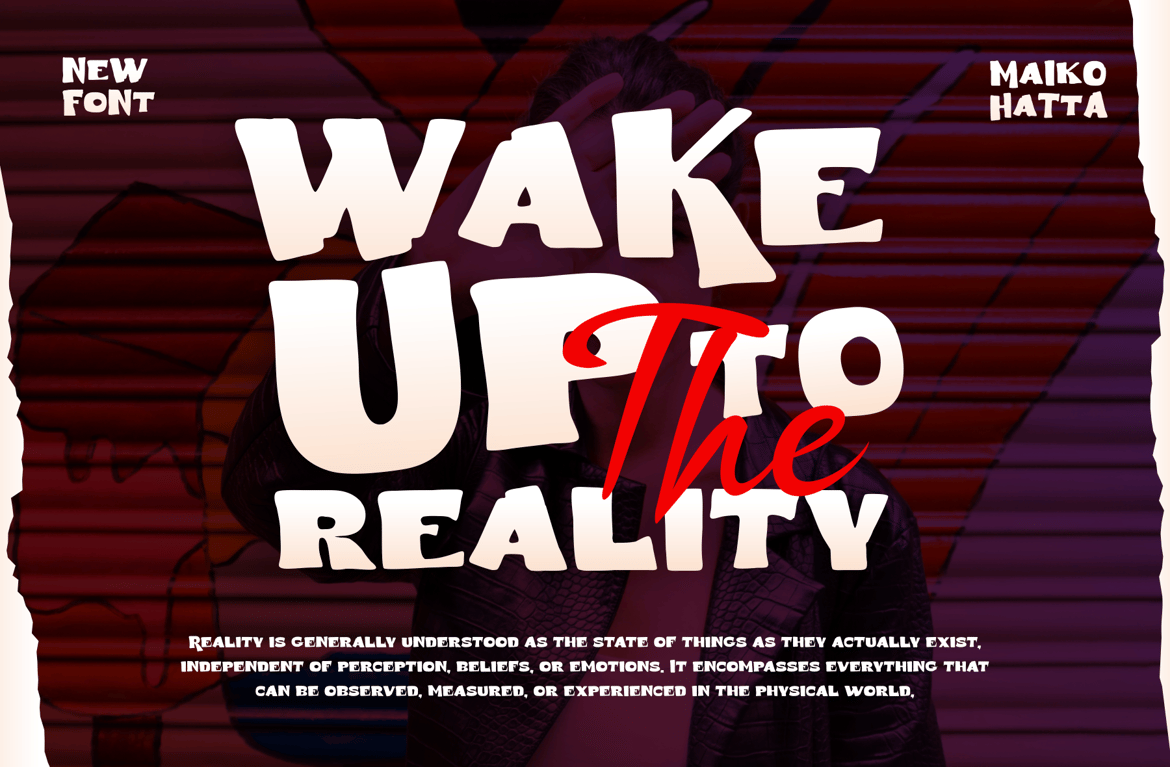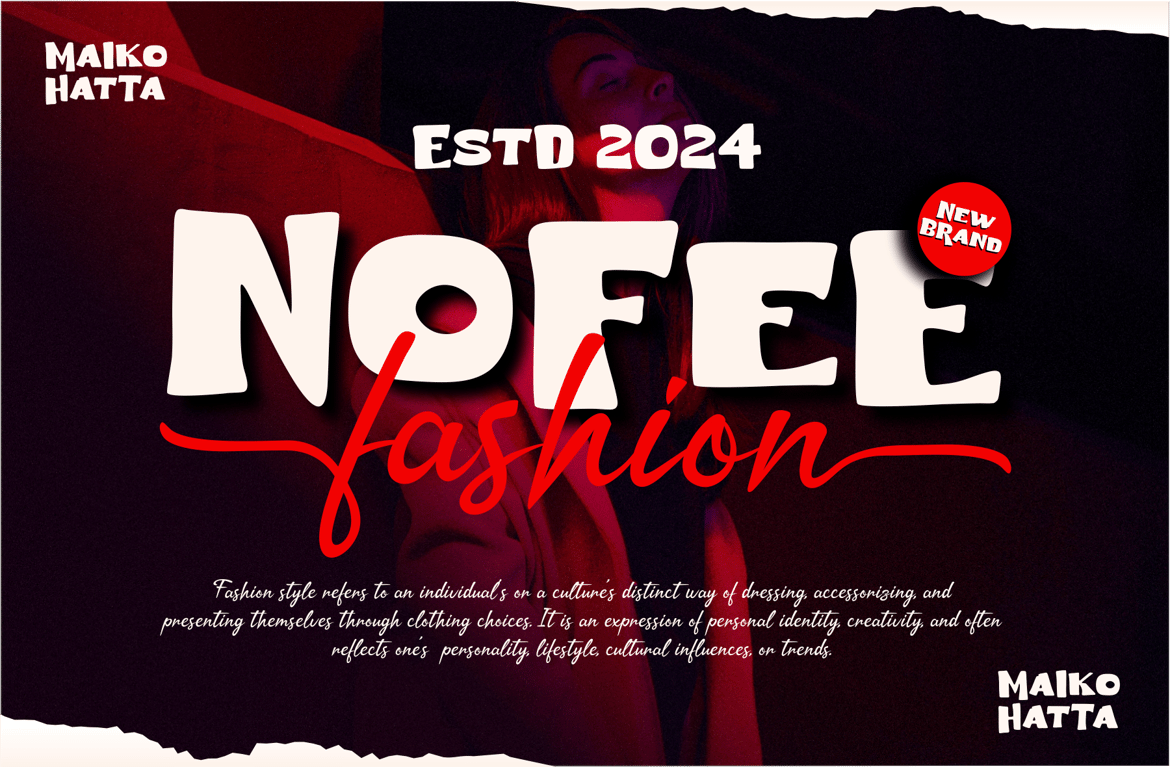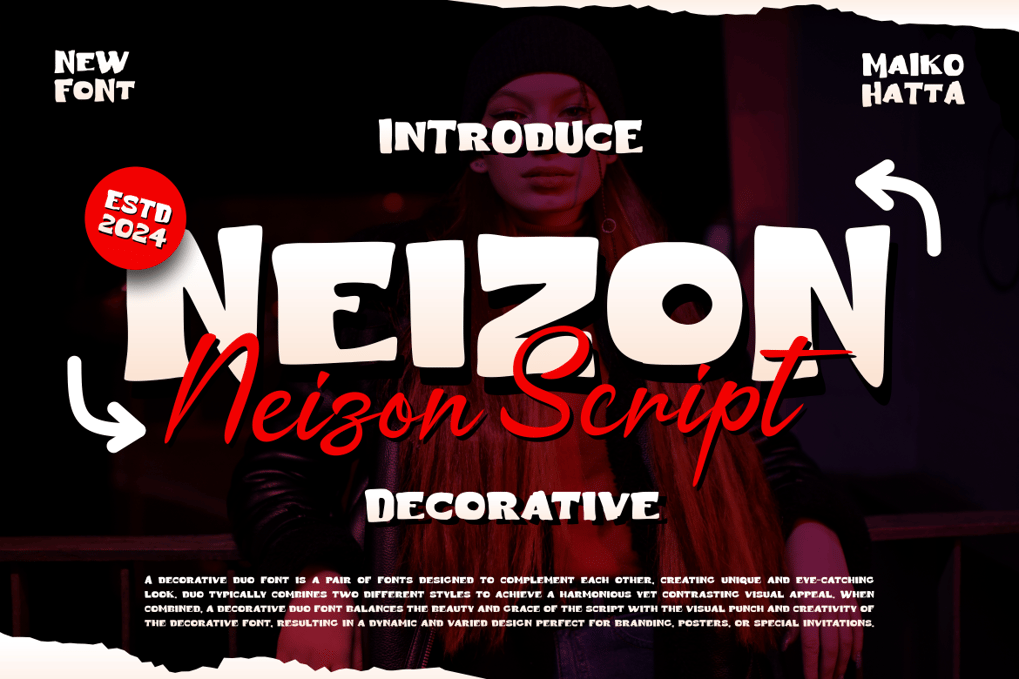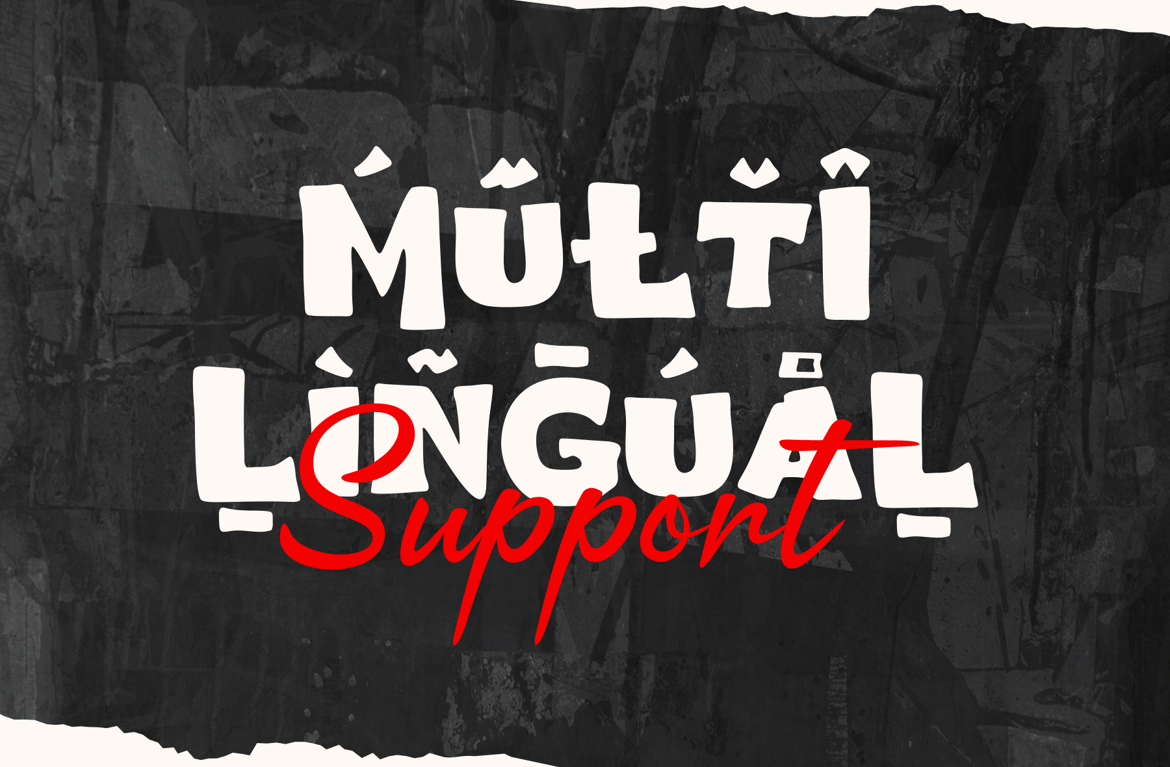
Neizon – Decorative Font Duo
The collaboration between serif and script fonts is suitable for various designs such as invitations, brand promotional materials, books, greeting cards, logos, web designs, and presentations. This collaboration provides the flexibility to convey messages in an engaging style on a variety of project types, striking a balance between formal and personal looks.